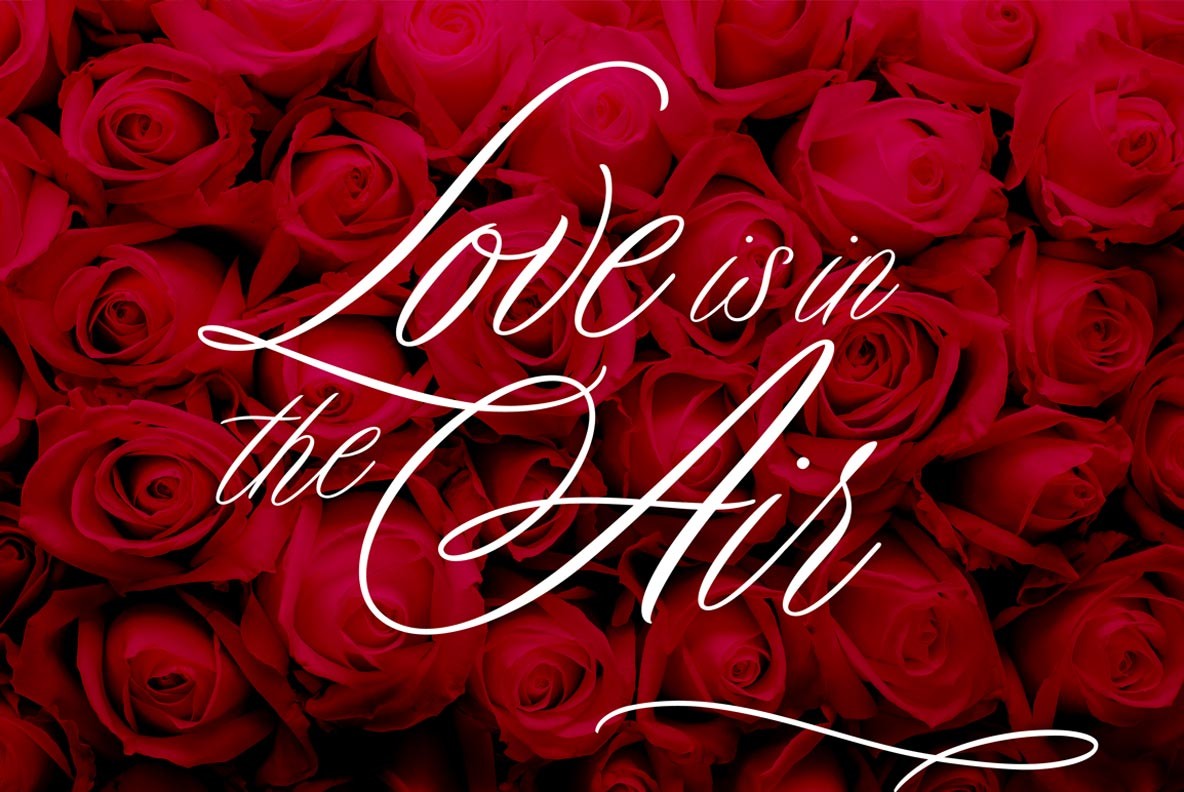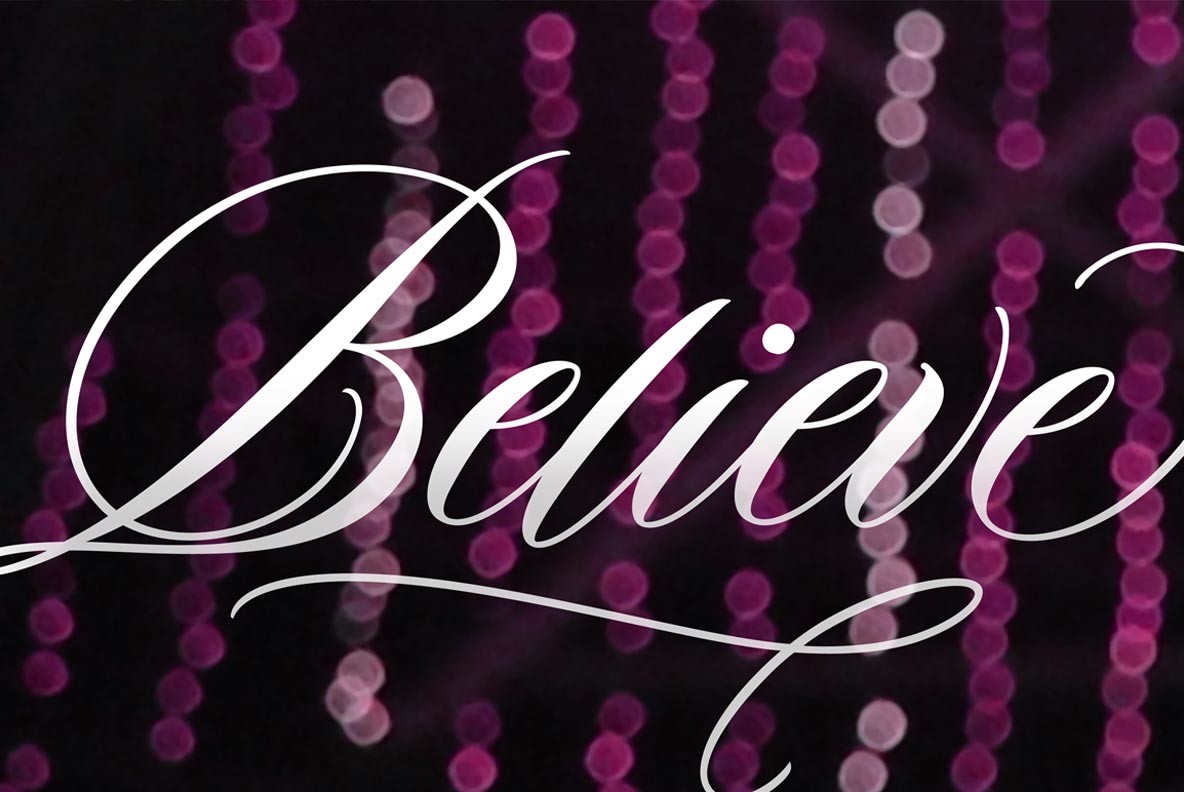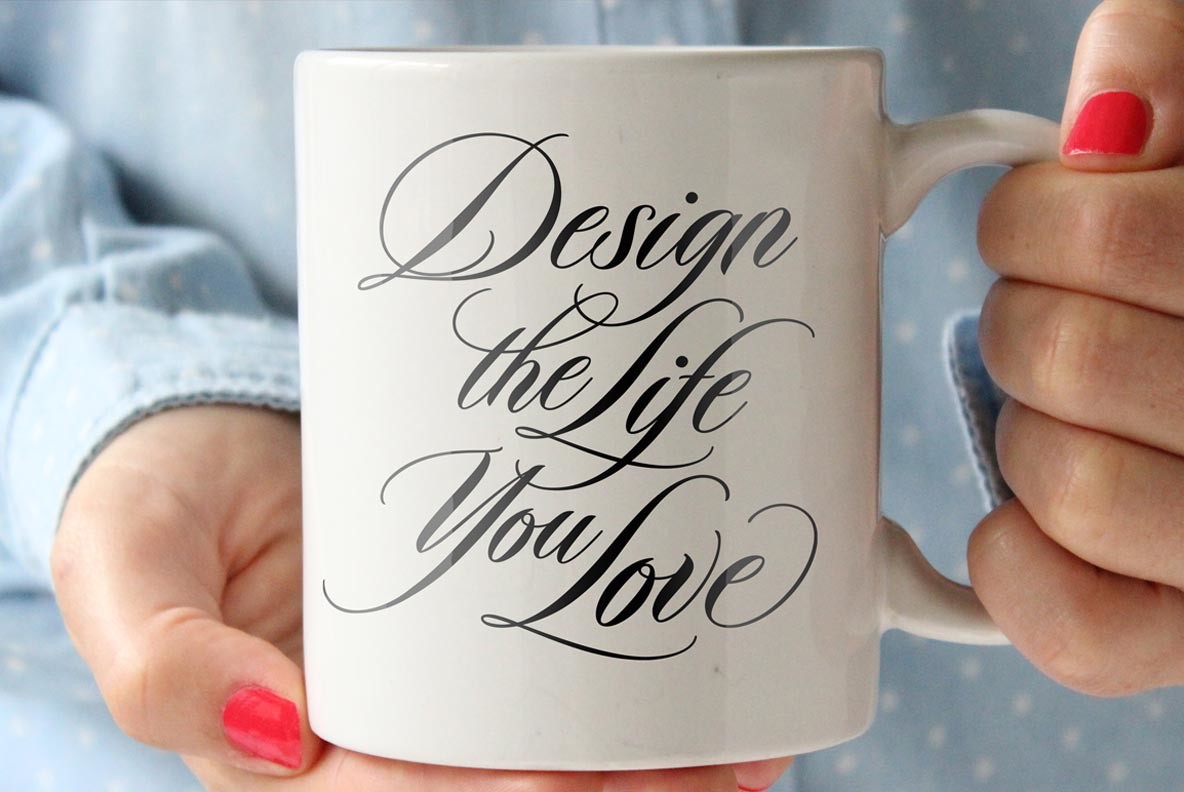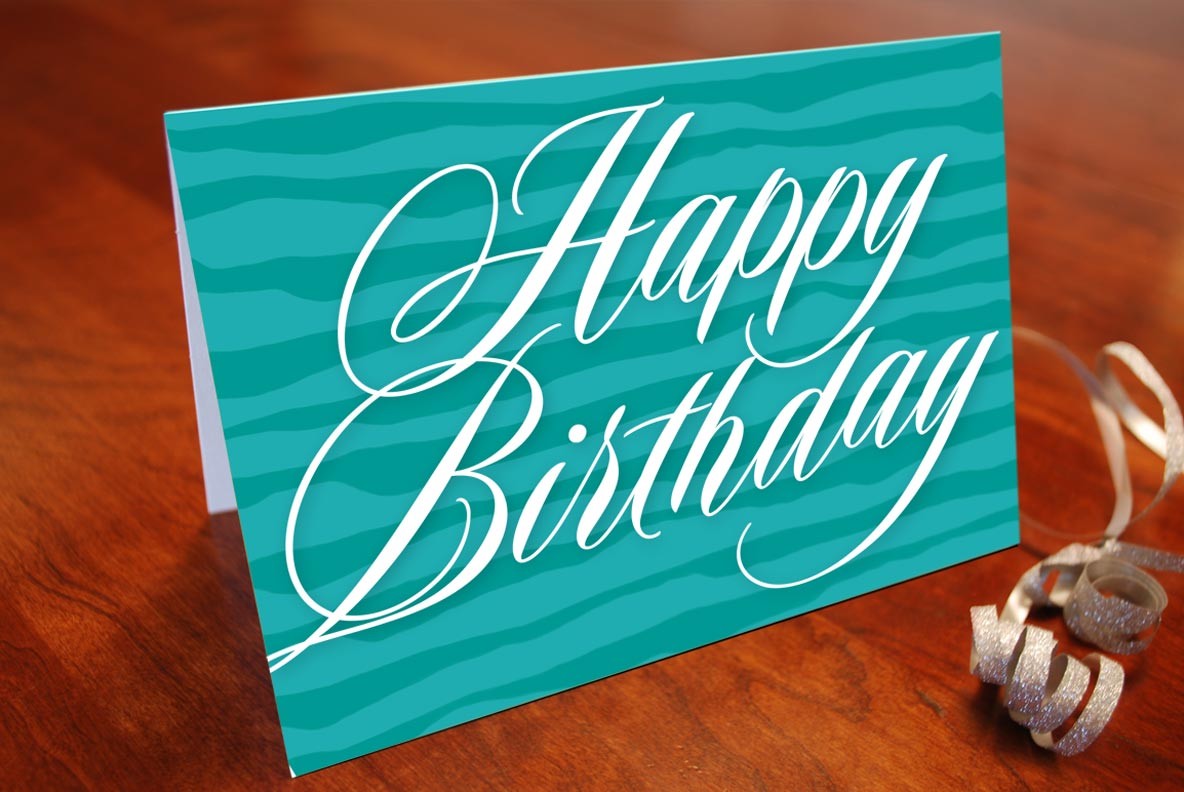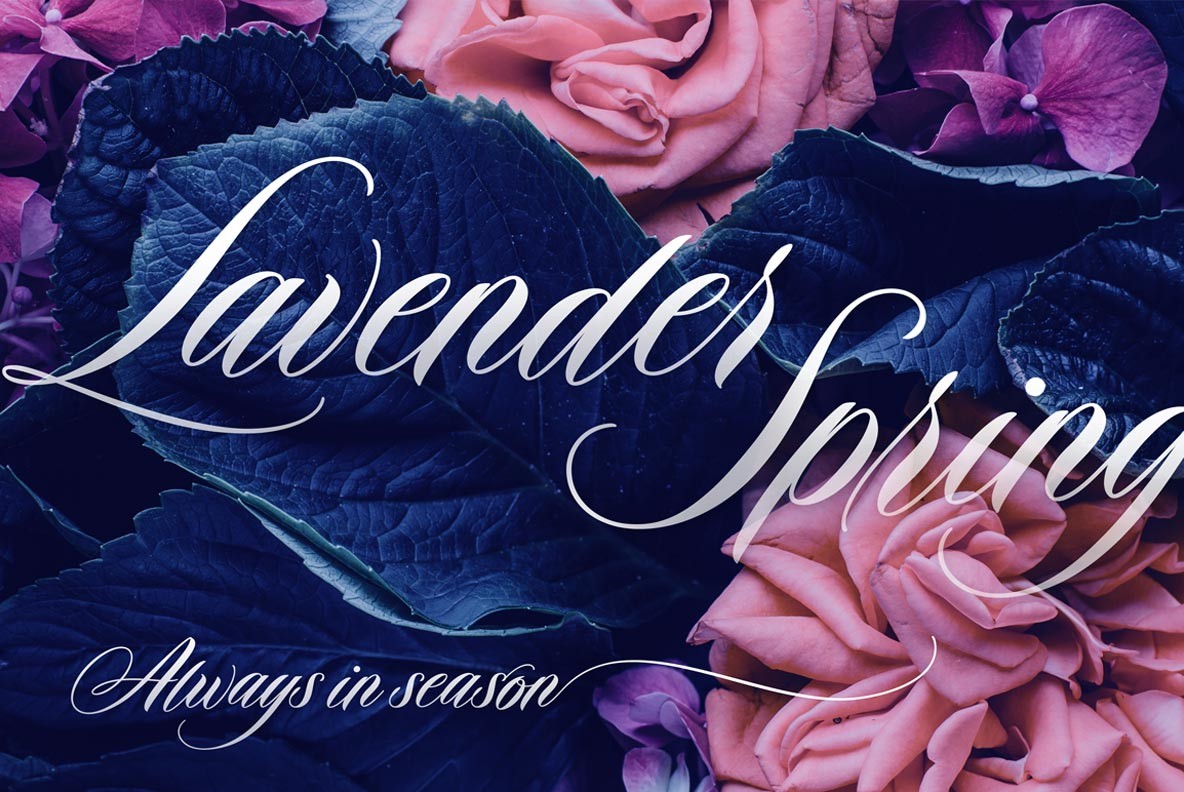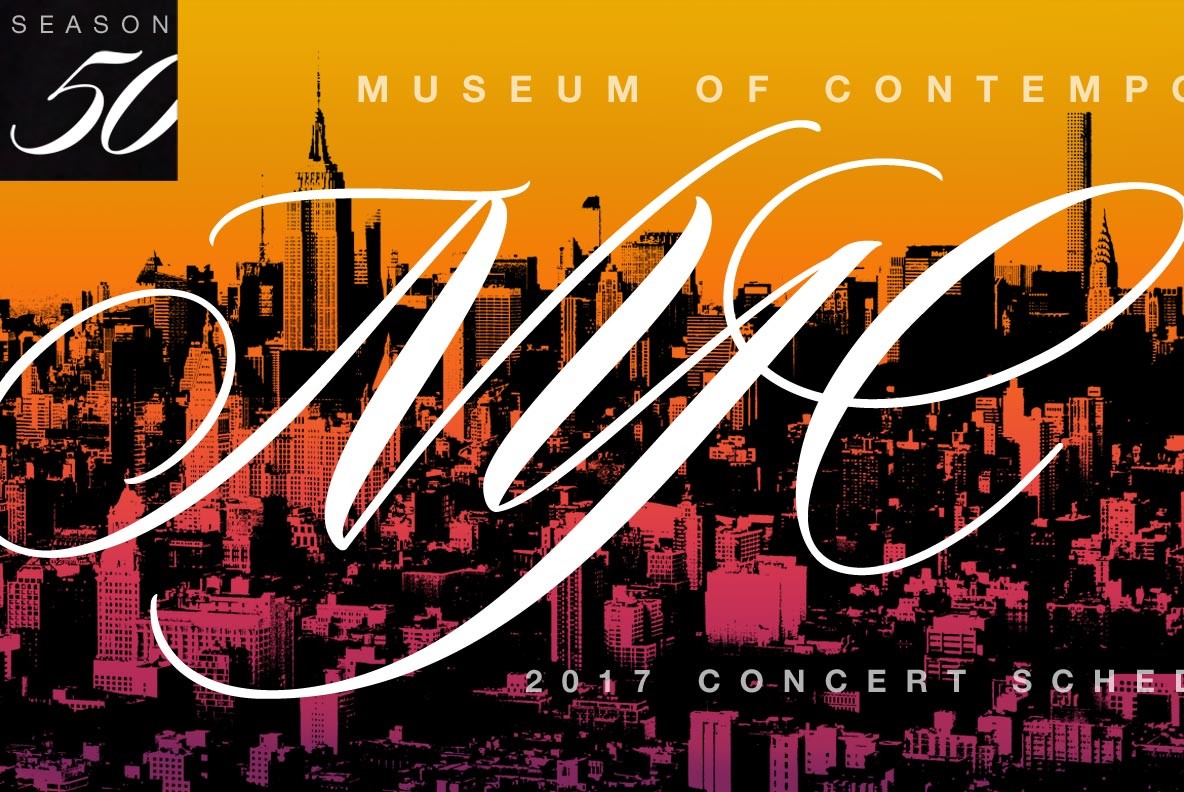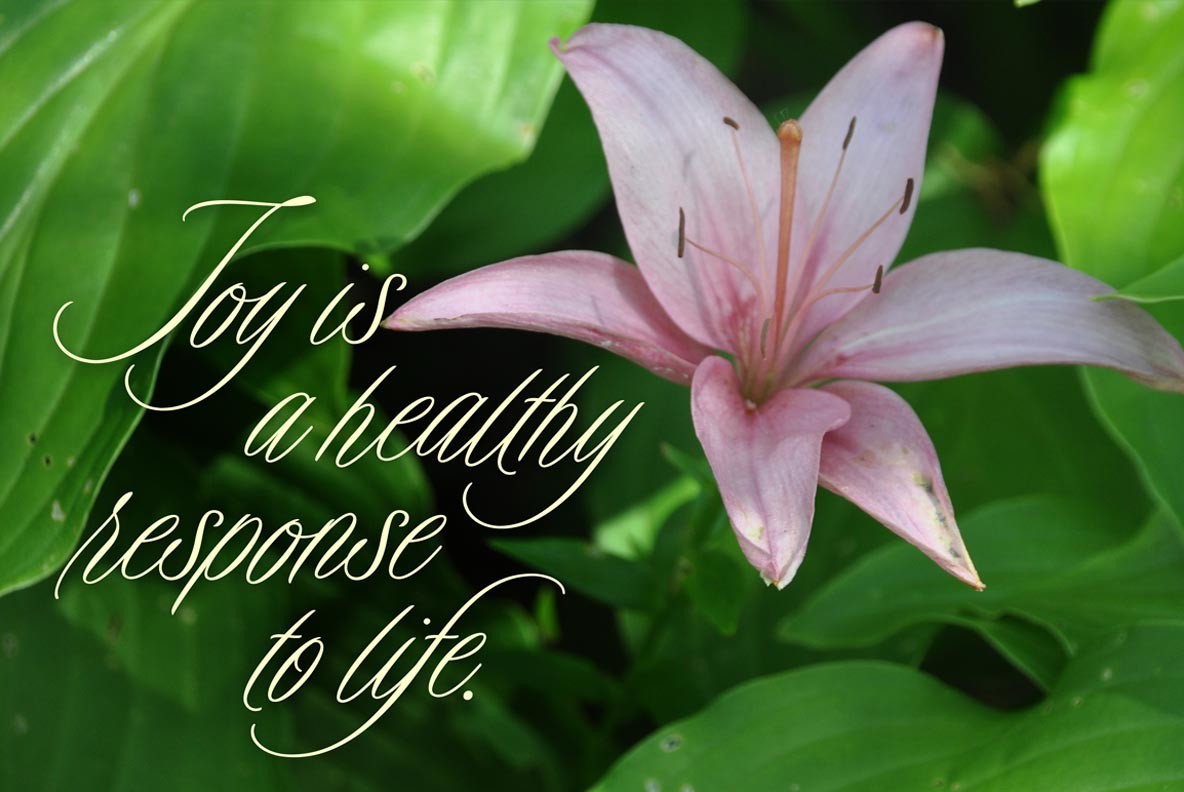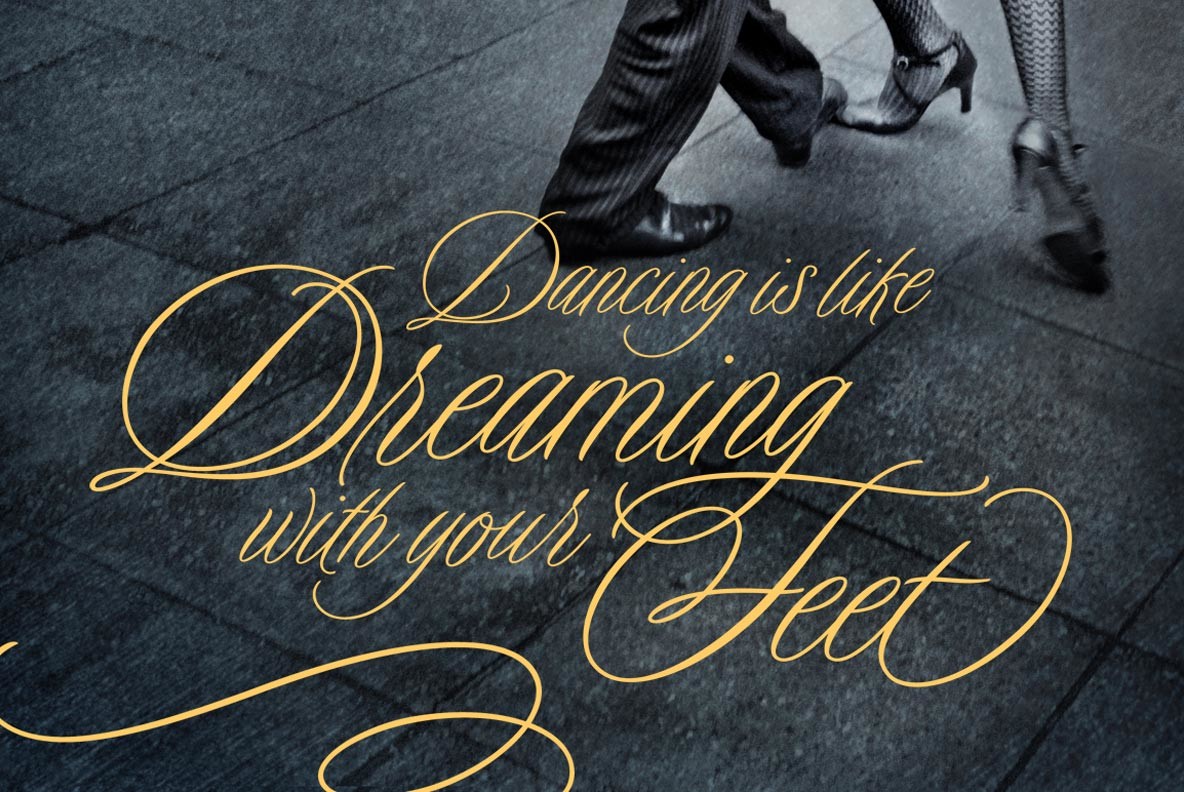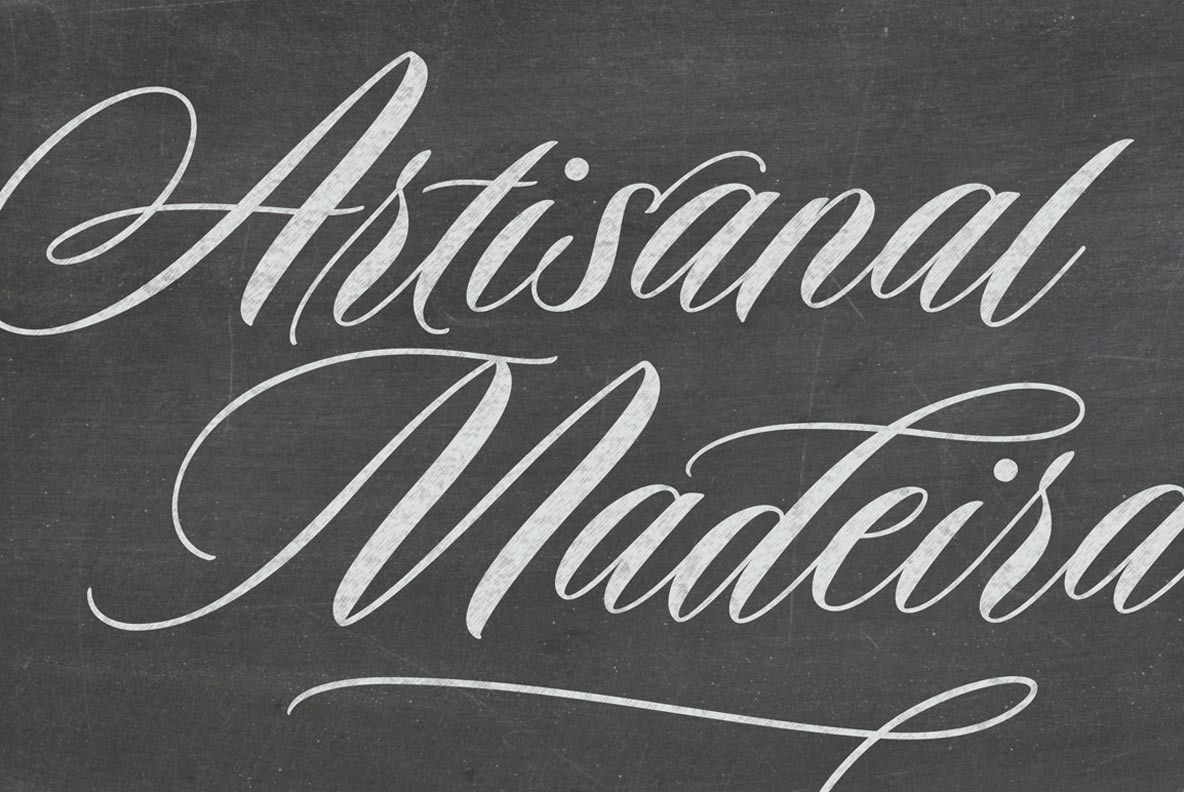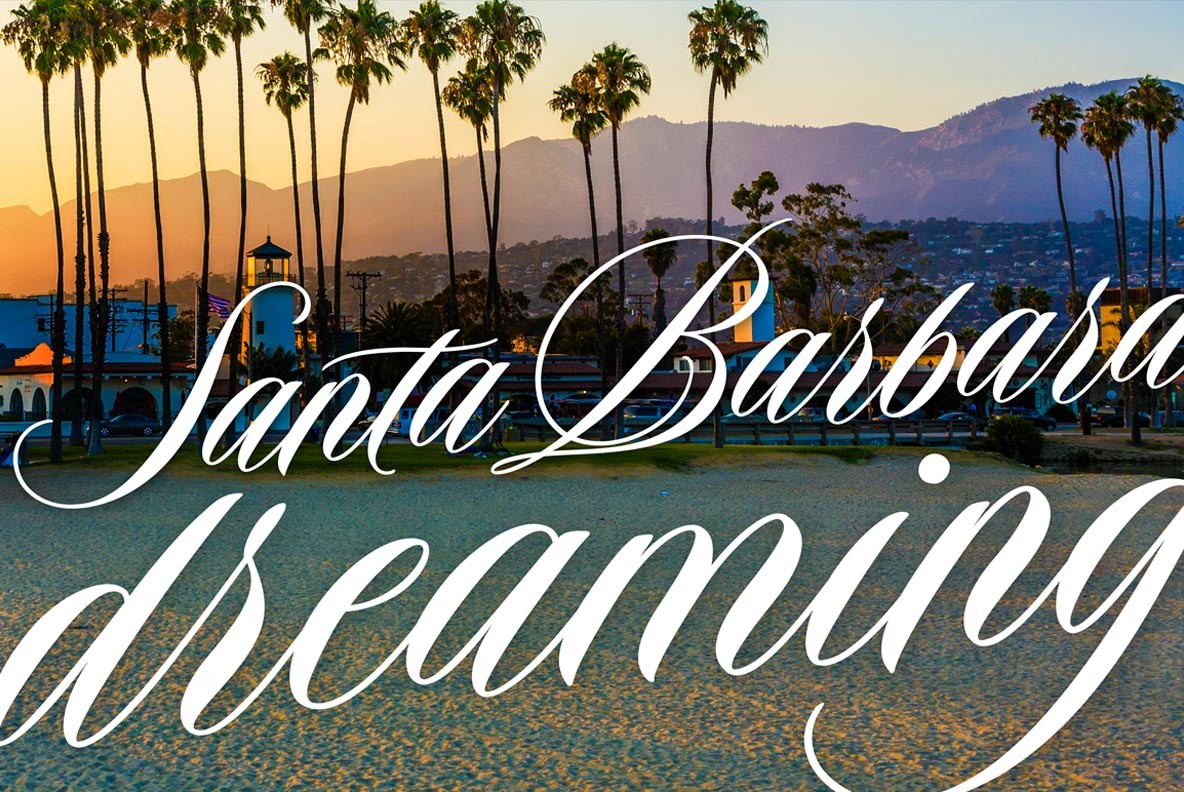
Duende Font
The hand-lettered Duende™ seeks to express a cheerful spontaneity with swashy details and playful movement of the baseline. Duende and Duende Light are rich with alternate glyphs and swash elements, the fonts also feature smart crossbars, alternate consecutive characters and expanded lowercase t crossbars when OpenType features Ligatures and Contextual Alternates are enabled. Other features include case-sensitive quotes and smart apostrophes. Duende and Duende Light are also available individually.
Alternate characters Duende has an alternate for every capital letter and multiple alternate options for the lowercase including swashy terminal characters and non-connecting alternates. Also included are a few clip-on swash elements that can be used to create initial and terminal forms for the lowercase.
Smart crossbars Duende uses smart crossbars for common situations, unifying Af, Aft, At, Att, Aff, tt and ff with a single crossbar automatically when the OpenType Ligature feature in on.
Smart consecutive characters The Ligature feature also ensures subtle baseline variation when two lowercase characters are keyed twice in a row, as well as lowercase o connections.
Contextual t crossbars Enable Contextual Alternates in your OpenType menu and Duende uses bigger t crossbars as the surrounding characters allow.
Custom crossbars You can also make your own lowercase t crossbar to fit any situation combining one of the included crossbars and non-crossbar t characters (available as ‘Alternates for Current Selection’ when t is selected). Just select the crossbar you want from the glyph table to the left of one of the non-crossbar t characters and kern them together or apart to achieve the spacing that best fits your design, or use separate text elements and move them anywhere. Also included are two tt ligatures with crossbars and one without. Duende also has a few other swashy things that can be used to cross the lowercase t.
Similarly, the alternate capital U, V, W, X and Y may be used with any one of the swash options available in the glyph table for those characters.